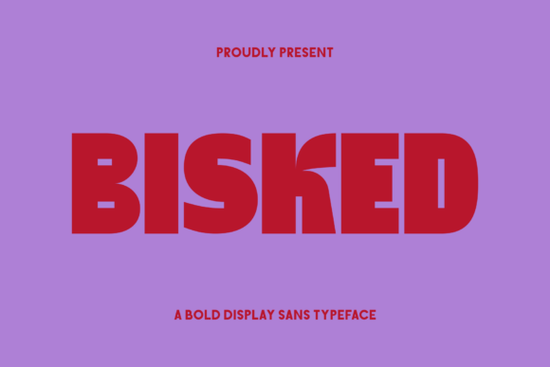
If you're looking for a typeface that stands out and makes a bold statement, Bisked Font is an excellent choice. This unique display sans serif font combines retro aesthetics with modern experimental typography, making it perfect for projects that need a strong, expressive, and memorable visual presence.
What Makes Bisked Font Stand Out?
Bisked Font is not your typical sans serif. Its oversized proportions, heavy geometric structure, and playful distortions create a striking and energetic look. Inspired by vintage editorial graphics, psychedelic posters, and brutalist design trends, Bisked offers a nostalgic yet futuristic personality. This blend of old and new makes it a versatile option for a wide range of creative projects.
Key Features of Bisked Font
- Oversized Proportions: The large, bold letters make a strong impact in any composition.
- Heavy Geometric Structure: Clean, sharp lines and angles give the font a modern, structured feel.
- Playful Distortions: Exaggerated curves, asymmetrical cuts, and warped shapes add a unique, artistic touch.
- Multilingual Support: Bisked includes support for multiple languages, making it accessible to a global audience.
- Ligatures and Alternates: These features allow for more creative and customized text layouts.
Where Can You Use Bisked Font?
Bisked Font is incredibly versatile and can be used in a variety of creative applications. Here are some ideas:
- Posters: Create eye-catching promotional materials for events, concerts, or campaigns.
- Fashion Branding: Add a bold, youthful edge to your fashion brand's logo and marketing materials.
- Music Covers: Design album covers and promotional graphics that stand out and capture attention.
- Magazine Headlines: Make your headlines pop with a strong, expressive typeface.
- Streetwear Graphics: Incorporate Bisked into your streetwear designs for a rebellious, edgy look.
- Packaging: Use Bisked to create memorable and impactful packaging designs for products.
- Contemporary Visual Identities: Develop a unique and recognizable brand identity with this distinctive font.
How Does Bisked Compare to Other Sans Serif Fonts?
While there are many sans serif fonts available, Bisked Font stands out with its unique combination of retro and modern elements. For example, Balimo Font and Helvetica Font offer clean, minimalist designs, but they lack the playful and expressive nature of Bisked. Similarly, Rounded Sans Bundle Font and Grandeur Font provide a more traditional, rounded look, which may not have the same bold impact as Bisked. If you're looking for something with a bit more character, Agootack Font might be a closer match, but it still doesn't quite capture the same blend of nostalgia and modernity that Bisked does.
Getting Started with Bisked Font
To get the most out of Bisked Font, consider the following tips:
- Experiment with Layouts: Play around with different text arrangements and sizes to find the best fit for your project.
- Combine with Other Fonts: Pair Bisked with more traditional fonts like Helvetica or Balimo to create a balanced and visually appealing design.
- Use for Large-Scale Projects: Bisked works exceptionally well for large-scale compositions, so don't be afraid to go big with your designs.
- Test Readability: While Bisked is designed to be readable, always test your text to ensure it’s clear and easy to read, especially in smaller sizes.
By incorporating Bisked Font into your design toolkit, you can create bold, expressive, and highly memorable projects that capture attention and leave a lasting impression. Whether you're designing for print, digital, or both, Bisked is a versatile and dynamic choice that will help you achieve your creative goals.